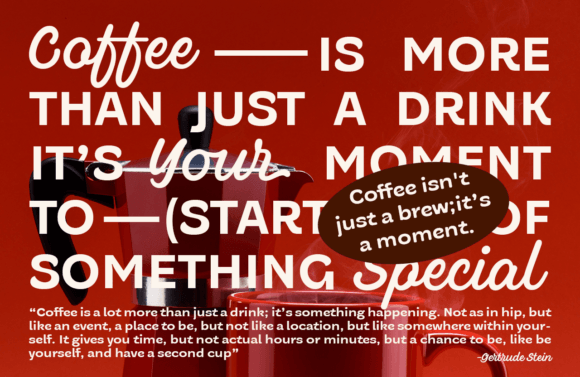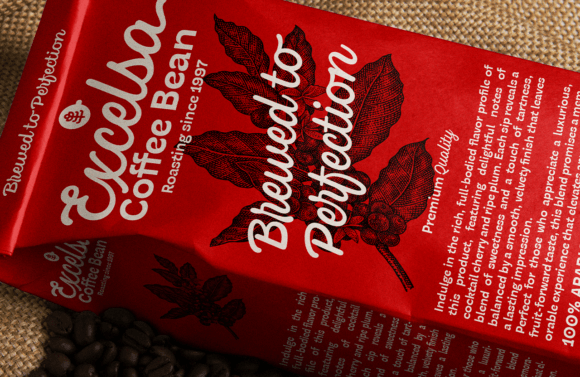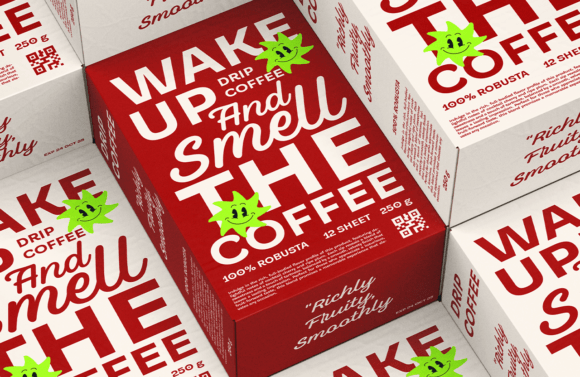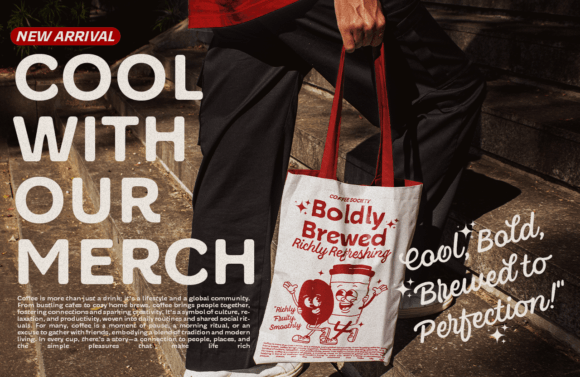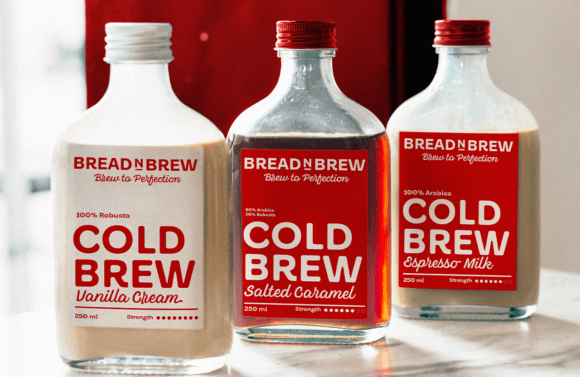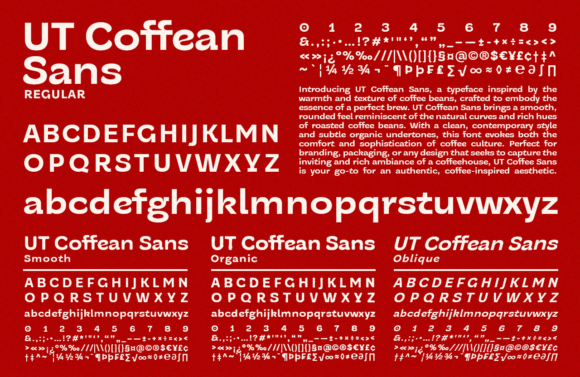
Immerse Your Designs in the Cozy World of Coffee with UT Coffean Font Duo
Are you a designer or craftsperson looking for a unique and captivating font to elevate your brand or project? Look no further than the UT Coffean Font Duo, a handcrafted typographical experience inspired by the organic beauty of coffee beans. This duo, consisting of UT Coffean Sans and UT Coffean Script, brings a warm and inviting feel to your designs, perfect for artisan coffee shops, boutique brands, and lifestyle businesses.
The Inspiration Behind UT Coffean Font
The UT Coffean Font Duo draws its inspiration from the delicate anatomy of coffee beans. Each character is carefully crafted to reflect the curves, indentations, and flows of these tiny, yet mighty, beans. The result is a font that exudes a sense of warmth, comfort, and sophistication, reminiscent of a perfectly brewed cup of coffee.
UT Coffean Sans: Elegance and Versatility
UT Coffean Sans is the perfect blend of style and structure, offering a range of style options, including Regular, Smooth, Oblique, and Organic. This font is ideal for designers seeking a versatile and elegant typographical experience. With its clean lines and precise curves, UT Coffean Sans is perfect for use in:
- Coffee shop menus and branding
- Boutique coffee brand packaging
- Lifestyle business marketing materials
- Trendy café designs
UT Coffean Script: Fluid and Handwritten Aesthetic
UT Coffean Script, on the other hand, boasts a fluid and handwritten aesthetic, evoking the image of steam wafting from a freshly brewed cup of coffee. This font is perfect for adding a touch of elegance and sophistication to your designs. Use UT Coffean Script for:
- Coffee shop signage and menus
- Boutique brand labels and packaging
- Wedding and event invitations
- Artisanal food and beverage branding
Why Choose UT Coffean Font Duo?
So, why should you choose the UT Coffean Font Duo for your design projects? Here are just a few compelling reasons:
- Unique and captivating design: The UT Coffean Font Duo offers a distinctive and eye-catching aesthetic that will set your brand or project apart from the rest.
- Versatility: With a range of style options and use cases, UT Coffean Sans and UT Coffean Script can be used in a variety of design applications.
- Handcrafted warmth: The UT Coffean Font Duo brings a sense of warmth and comfort to your designs, perfect for creating an inviting and cozy atmosphere.
- Elegant and sophisticated: Both UT Coffean Sans and UT Coffean Script exude a sense of elegance and sophistication, making them perfect for high-end brands and luxury projects.
| Font Name | Coffean Font |
| Author | Universitype |
In conclusion, the UT Coffean Font Duo is a must-have for designers and craftspersons seeking to add a touch of warmth and sophistication to their projects. With its unique and captivating design, versatility, and handcrafted aesthetic, this font duo is perfect for artisan coffee shops, boutique brands, and lifestyle businesses. So why wait? Immerse your designs in the cozy world of coffee with the UT Coffean Font Duo and experience the magic of coffee-inspired typography.
Whether you’re a seasoned designer or a crafty entrepreneur, the UT Coffean Font Duo is sure to delight. So go ahead, get creative, and let the UT Coffean Font Duo bring a touch of coffee culture to your designs!